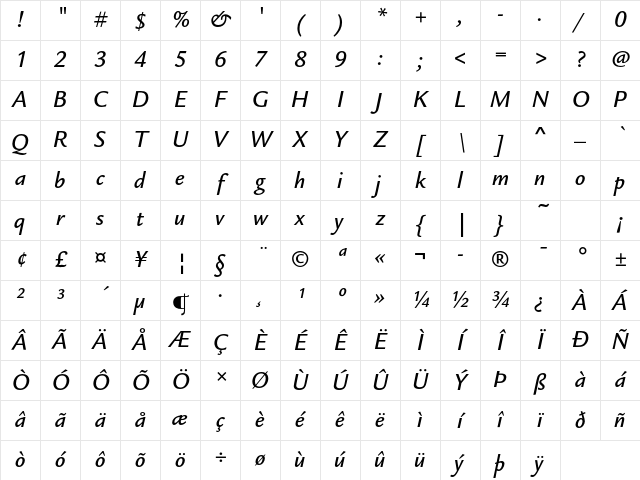
ITC Legacy Sans Std Medium Italic
Designer: Ronald Arnholm
Complete ITC Legacy Sans Std Medium Italic glyph index. Displaying only characters natively supported by ITC Legacy Sans Std Medium Italic font.
Design Context for ITC Legacy Sans Std
ITC Legacy Sans Std is a composed and adaptable typeface that performs quietly and consistently across a wide range of design contexts. The slanted form adds forward momentum and visual energy.
Pro Tip: Use ITC Legacy Sans Std for emphasis, pull quotes, and subheadings where its slanted energy can add rhythm to the layout.